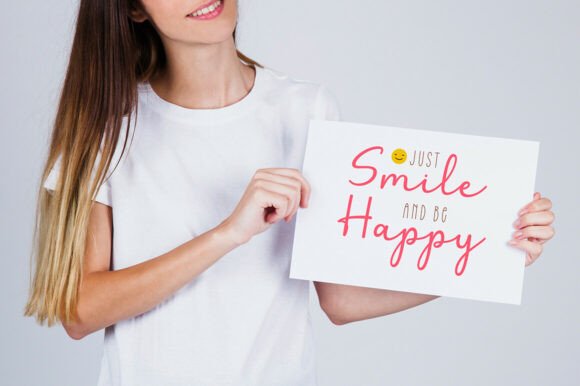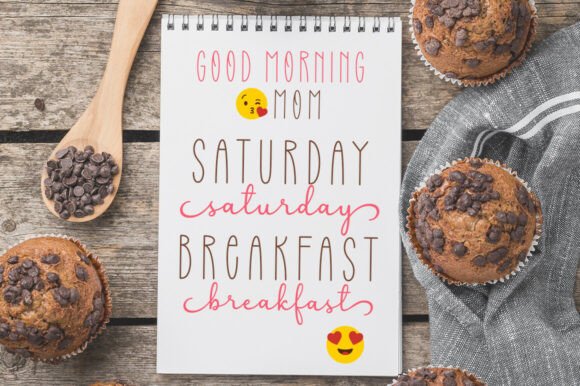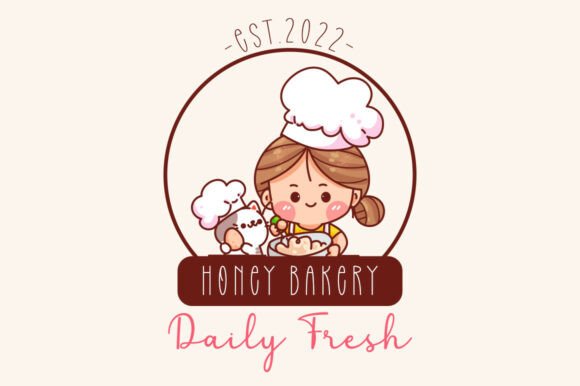
Introduction to Chocolate Cupcake Duo Font
Remember that moment when you finally nailed the perfect design for your client’s special occasion? The client’s eyes lit up, and you knew you’d made a real difference. That’s the magic of typography – a well-chosen font can elevate any design and make it truly unforgettable. For designers, finding the right font can be a game-changer, and that’s where the Chocolate Cupcake Duo Font comes in.
This delightful font is designed to add a touch of whimsy and sophistication to any project. With its adaptable nature, it can seamlessly slide into heartfelt note cards or steal the show in eye-popping headlines. Whether you’re working on a creative project or need a reliable design resource, the Chocolate Cupcake Duo Font is sure to impress. And the best part? It’s available for free download, making it an accessible high-quality addition to any design arsenal.
Key Features of Chocolate Cupcake Duo Font
- Unique and playful design for creative projects, making it an ideal design resource for artists and designers.
- High-quality font with a transparent background, allowing for seamless integration with various design elements.
- The Chocolate Cupcake Duo Font is designed to be versatile, making it suitable for a wide range of creative projects, from digital art to print materials.
- This font is ideal for designers and artists who want to add a touch of whimsy and fun to their designs, making it a great addition to any design collection.
Honest Review: Chocolate Cupcake Duo Font
As a designer, I’m always on the lookout for high-quality design resources to elevate my creative projects. The Chocolate Cupcake Duo Font has caught my eye, and I’m excited to share my honest review with you.
- ✨ Beautifully designed cupcake illustrations that are sure to add a touch of whimsy to any design.
- ✨ High-quality graphics that are perfect for print or digital use.
- ✨ Transparent background makes it easy to incorporate into your design without any unwanted distractions.
- ⚠️ Limited customization options, which may not be suitable for designers who like to get creative with their fonts.
- ⚠️ May not be suitable for complex designs or large-scale projects due to the simplicity of the design.
Overall, the Chocolate Cupcake Duo Font is a great addition to any designer’s toolkit. While it may have some limitations, its high quality and unique design make it a great choice for creative projects.
For the best results, use the Chocolate Cupcake Duo Font in conjunction with other design elements. Common use cases include:
- Birthday invitations and party decorations
- Food and dessert-themed designs
- Wedding and event invitations